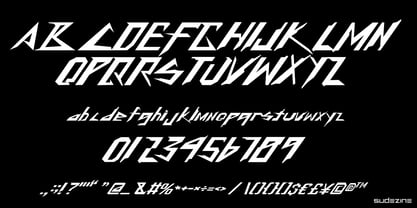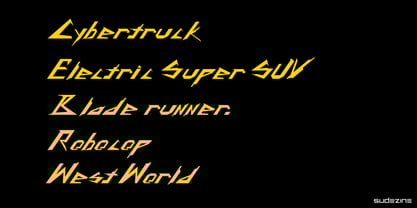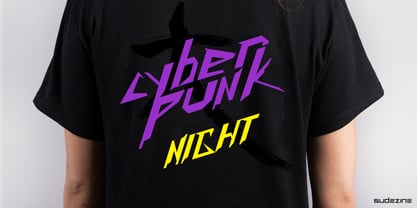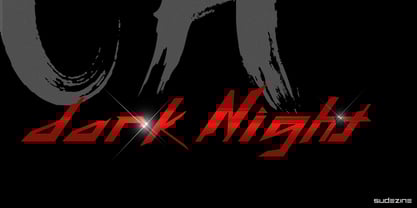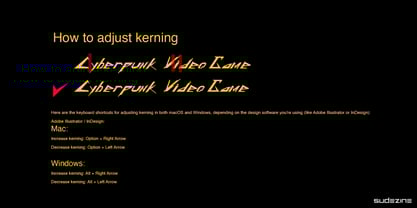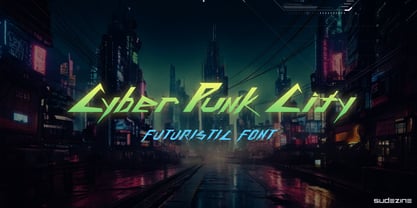
SD Cyber Punk City
by Sudezine
The SD Cyber Punk City Font Family was designed by Suhee Hwang and published by Sudezine. SD Cyber Punk City contains 1 styles. More about this family
This font is designed to evoke a digital, high-tech aesthetic associated with the cyberpunk genre. you can use logos, Game, quotes, invitations, greeting cards, journals, posters, clothing, and more
Sudezine was founded in 2022 to house a small collection of fonts created by Suhee Hwang after17 years of freelance experience in the field of motion graphic and graph design experience.The general aim of the company is to create a continuously growing library of craft a font that is entirely unshackled, exuding individuality and unique personality in every character and curve and new digital fonts.